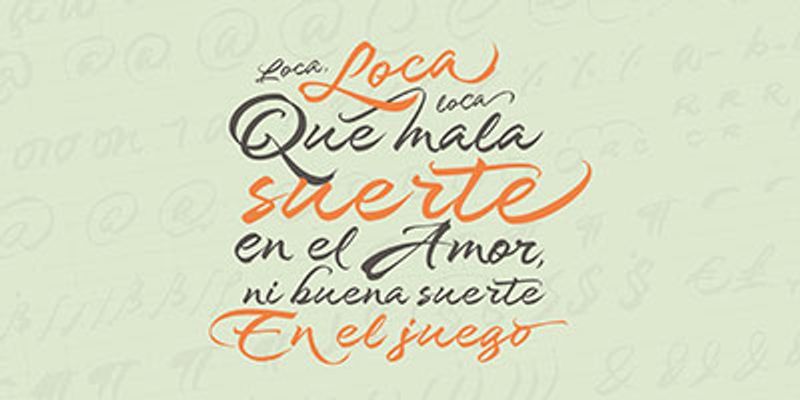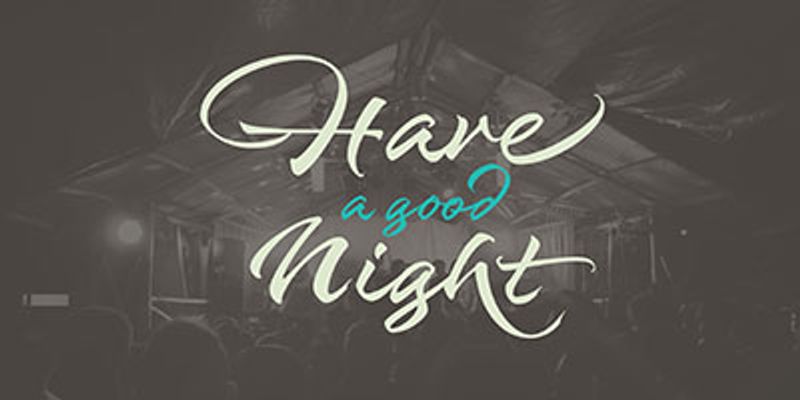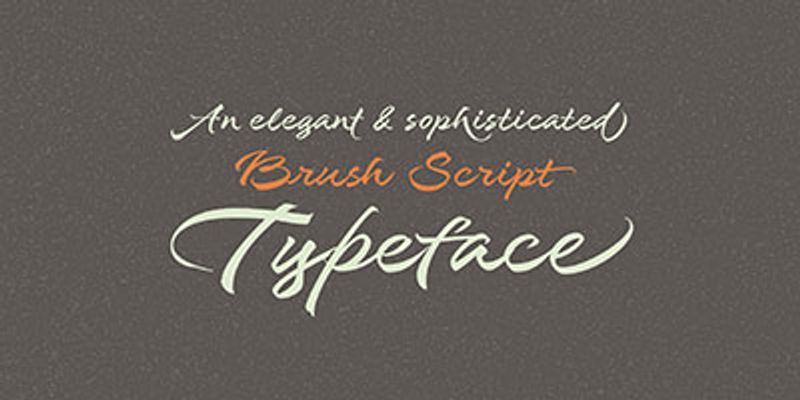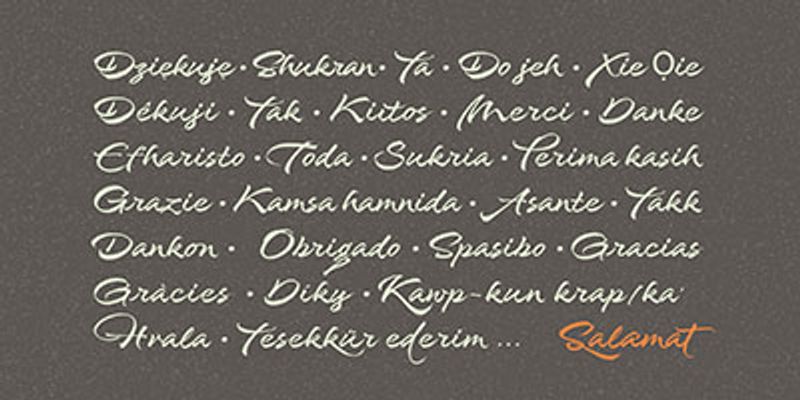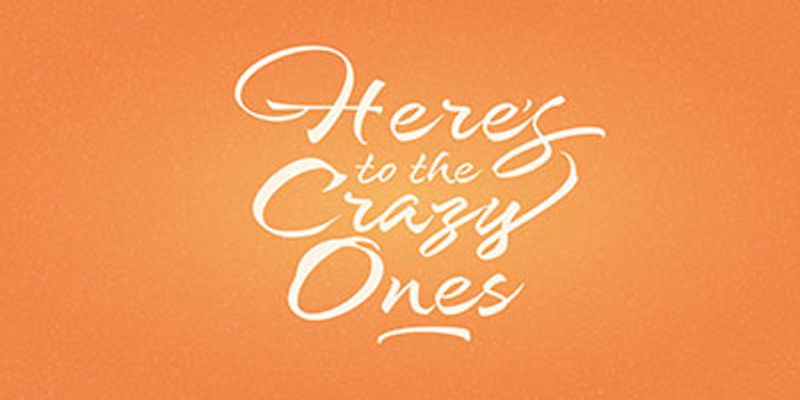
A stylized typography; that lends to humanistic-expressive calligraphy, optimized with wide variety of swash capitals, contextuals ligatures, ascending and descending, starting and ending letters and a wide range of characters for each glyph. Salamat provides the user absolute freedom to play, create words, sentences and even very stylized paragraphs.